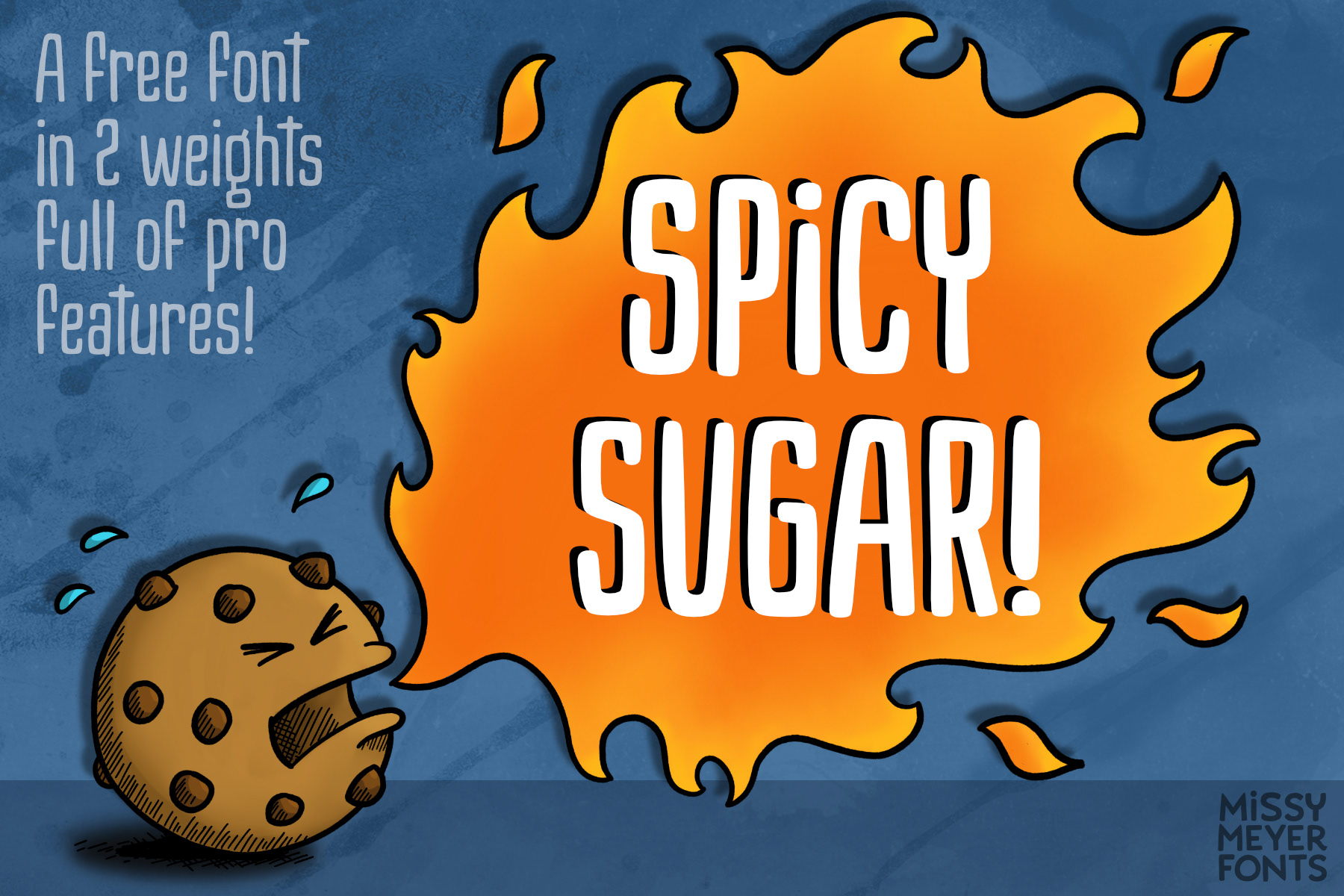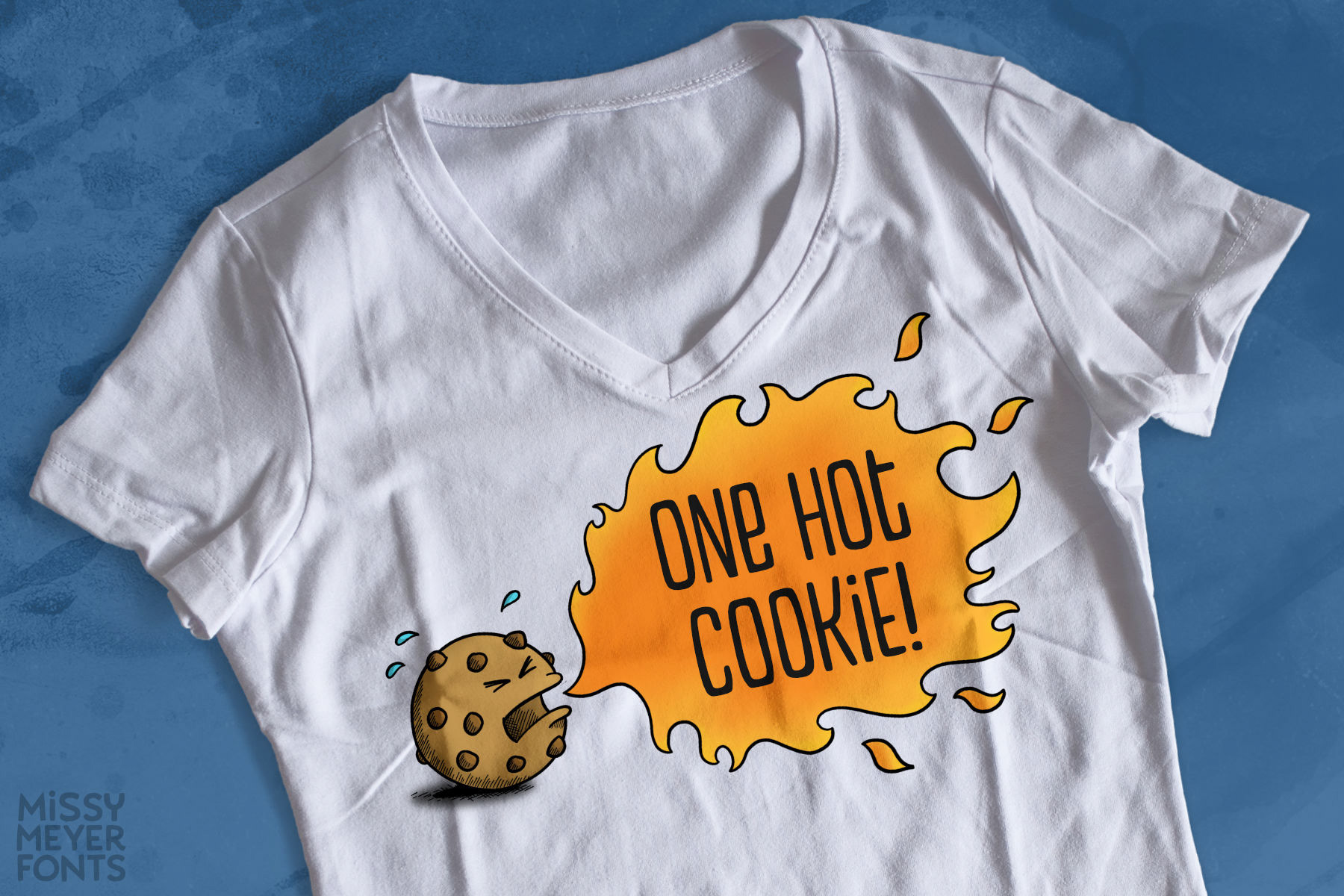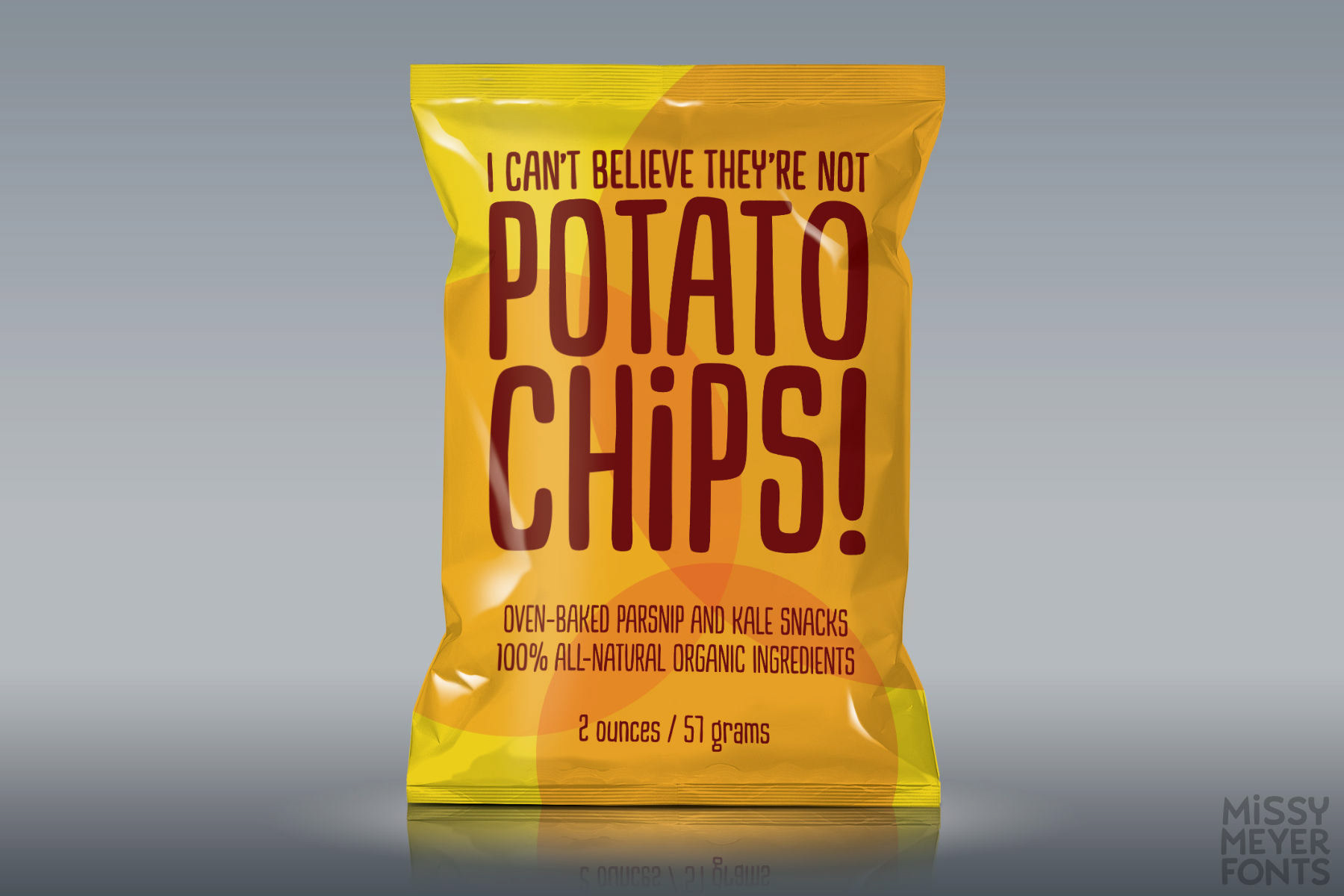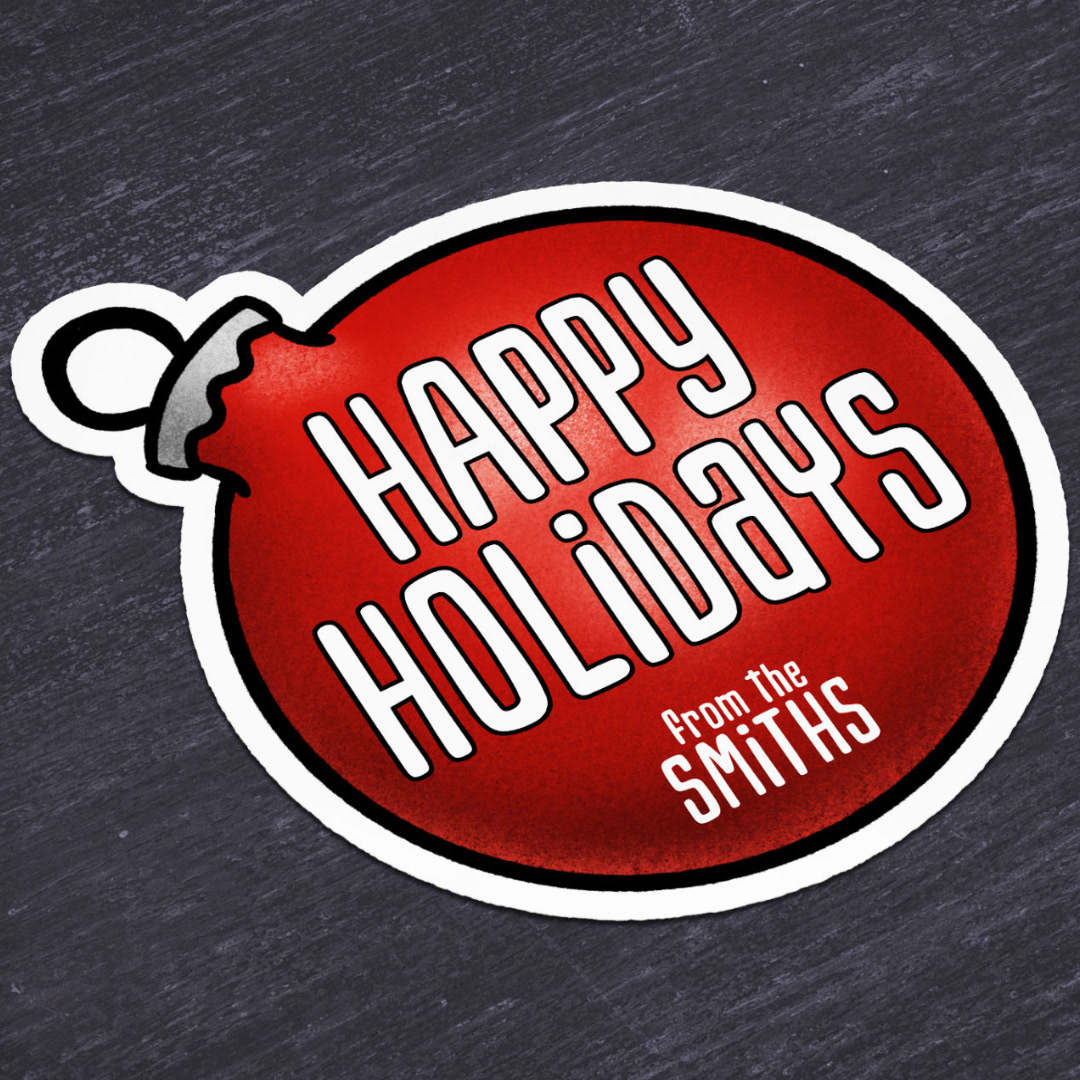
Most of my free fonts fall into one of two categories: the early fonts I made while I was learning construction, and smaller-scope fonts that don't have a lot of features or cleanup.
With Spicy Sugar, I wanted to create a freebie with the same quality and content you'd find in my paid fonts! That means hand-drawn characters that are also cleaned up by hand, so they have reduced nodes and are sharp and clean. Plus a ton of extended Latin characters for language support, a number of alternates, and 37 multi-letter ligatures to keep a hand-written look even if the same letter shows up twice in a row!
- Two weights: Spicy Sugar and Spicy Sugar Thin!
- Over 330 extended Latin characters for language support!
- Over 45 alternate versions of heavily-used letters!
- 37 multi-letter ligatures for a hand-written look!